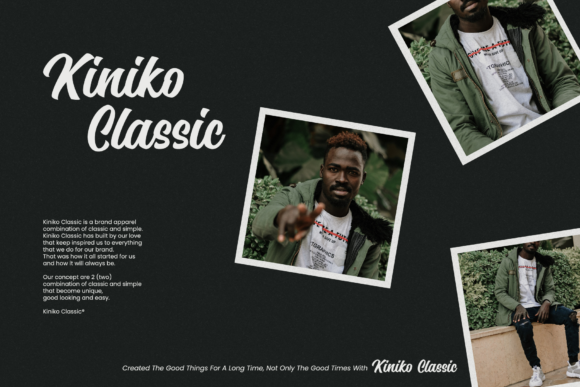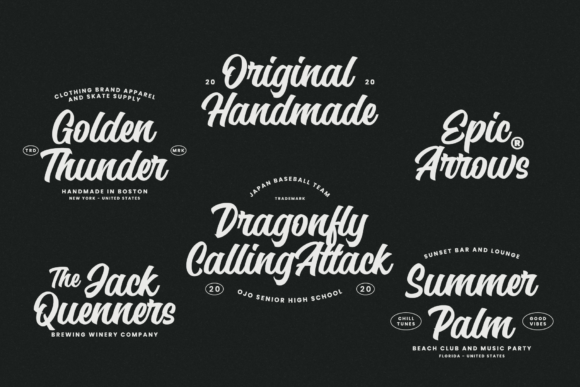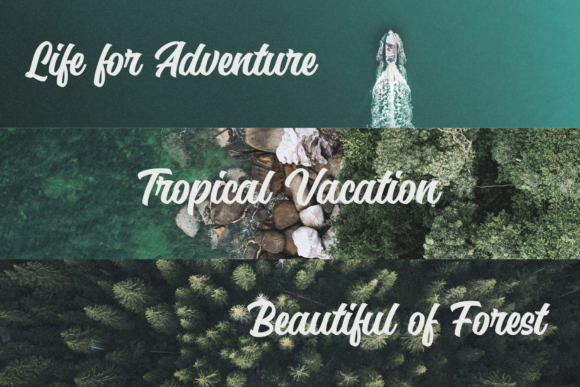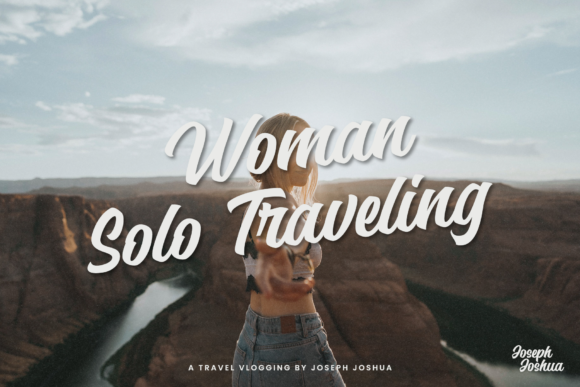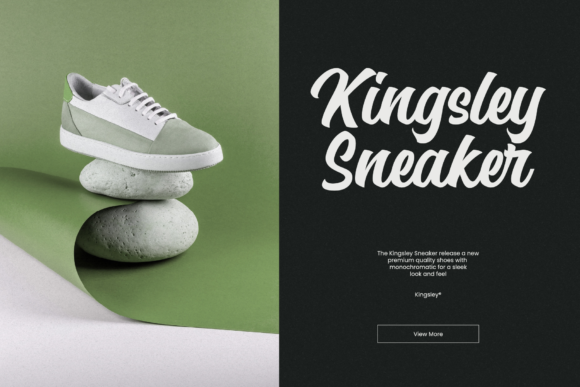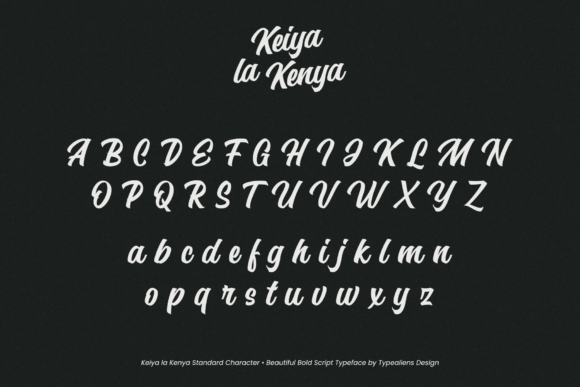
Introduction to Keiya La Kenya Font
Have you ever stared at a blank canvas, searching for the perfect font to bring your creative project to life? The struggle is real, but fear not, designers! I’ve got just the thing for you – a stunning font that’s sure to make your designs pop.
Meet the Keiya La Kenya Font, a gorgeous and bold handwritten font that’s crafted to give your headlines and logotype projects a retro touch. This font reads as strong, confident, and dynamic, adding tons of nostalgic character to your designs. Whether you’re working on a design project or simply looking for a free download to spice up your social media graphics, the Keiya La Kenya Font is a valuable resource for any creative.
With its high-quality design and transparent background, this font is perfect for designers who want to add a personal touch to their work without sacrificing professionalism. So why settle for an ordinary font when you can make a statement with the Keiya La Kenya Font?
Key Features of Keiya La Kenya Font
- Unique, hand-drawn design style perfect for creative projects and design resources.
- Keiya La Kenya Font is ideal for designers, artists, and creatives seeking a distinctive and modern look for their projects.
- Unique characteristics include intricate details and subtle texture, adding depth and visual interest to any design.
Honest Review: Keiya La Kenya Font
I recently stumbled upon the Keiya La Kenya Font and was immediately drawn to its unique aesthetic. As a designer, I’m always on the lookout for high-quality design resources to elevate my creative projects.
The Keiya La Kenya Font has a lovely, hand-drawn feel to it, making it perfect for designs that require a touch of whimsy. The font comes in a range of weights and styles, allowing for a great deal of flexibility in terms of its usage.
- Unique, hand-drawn aesthetic
Overall, I’m impressed with the Keiya La Kenya Font and would highly recommend it to designers looking for a high-quality, unique font to add some personality to their creative projects.
Use the Keiya La Kenya Font for high-quality creative projects, such as logo designs, business cards, and marketing materials.